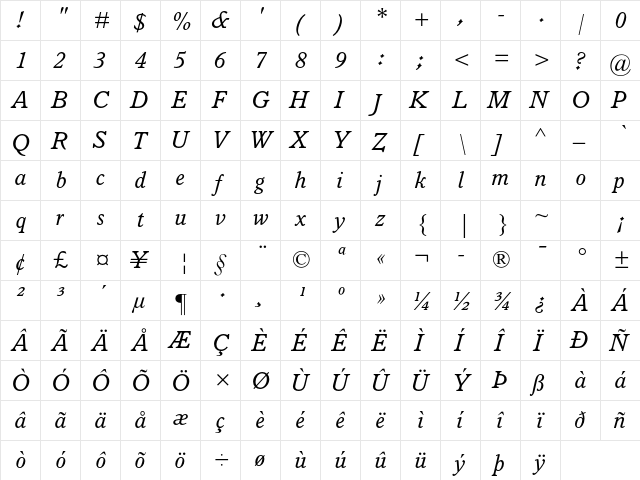
Italian Old Style MT Std Italic Font Preview
Italian Old Style MT Std Italic
Design Context for Italian Old Style MT Std Typeface
Italian Old Style MT Std is a composed and adaptable typeface that performs quietly and consistently across a wide range of design contexts. The slanted form adds forward momentum and visual energy.
Pro Tip: Try Italian Old Style MT Std for annotation and caption copy alongside an upright companion — the contrast in angle creates a dynamic but ordered typographic system.